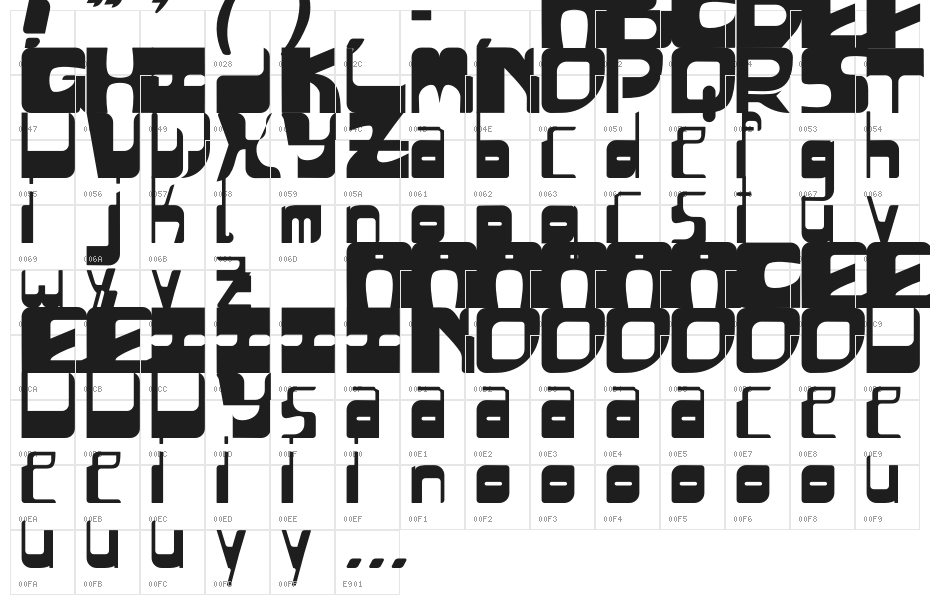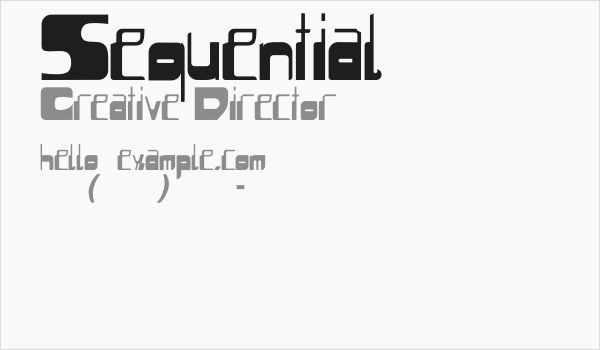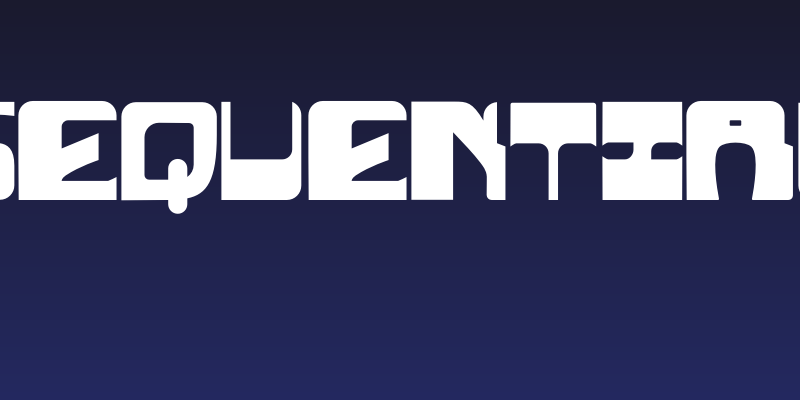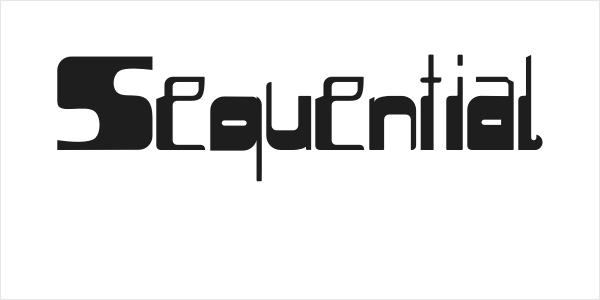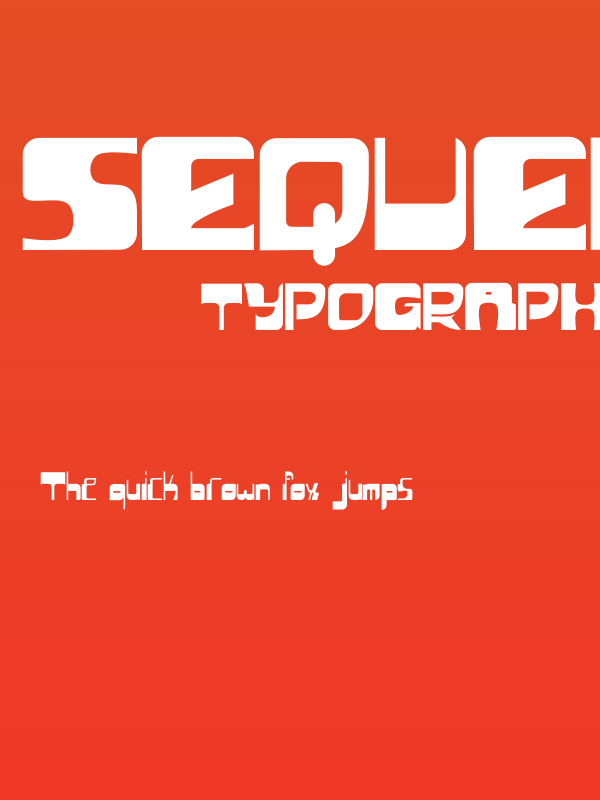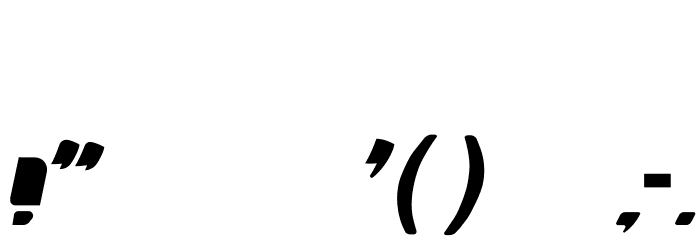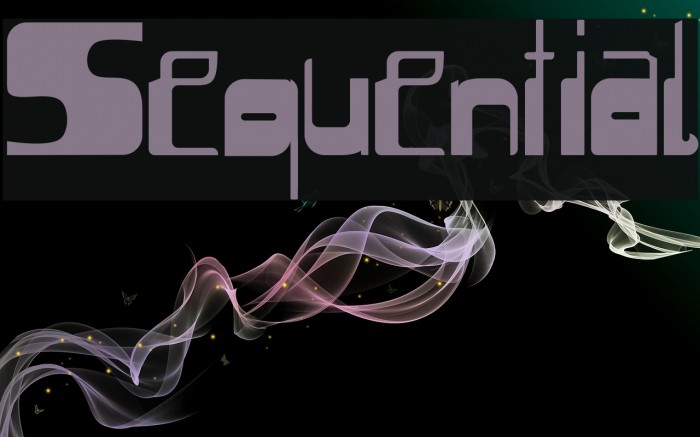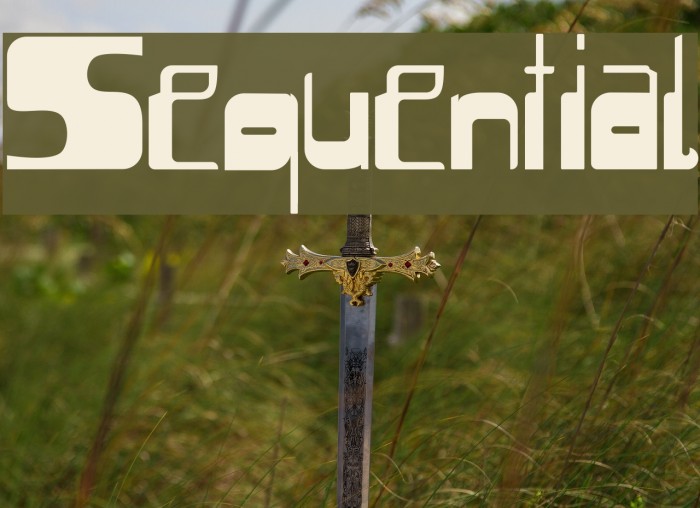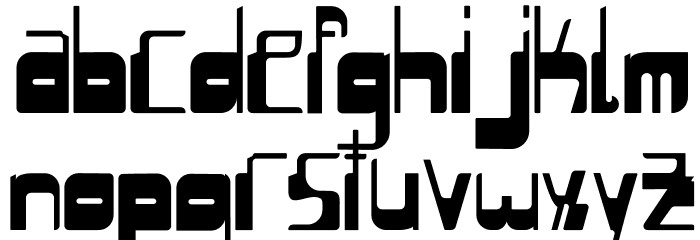
Sequential Font
Sequential Description
This font exhibits a bold and futuristic design with a unique geometric structure. The characters are crafted with a combination of sharp angles and smooth curves, creating a dynamic and modern appearance. The uppercase letters are particularly striking, with some featuring cut-out sections that add to the font's distinctive style. The lowercase letters maintain the geometric theme, offering a consistent look across the typeface. The numerals and special characters follow the same design principles, ensuring uniformity. This font is well-suited for projects that require a contemporary and eye-catching aesthetic.
| Proposed Projects | Ideal for technology branding, sci-fi posters, video game titles, and modern advertising. |